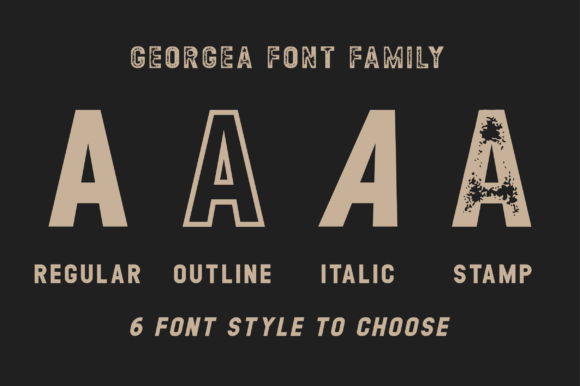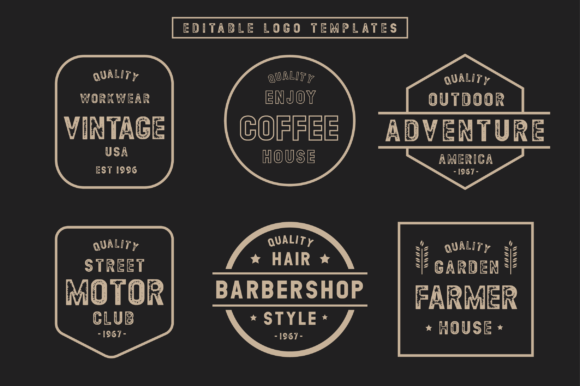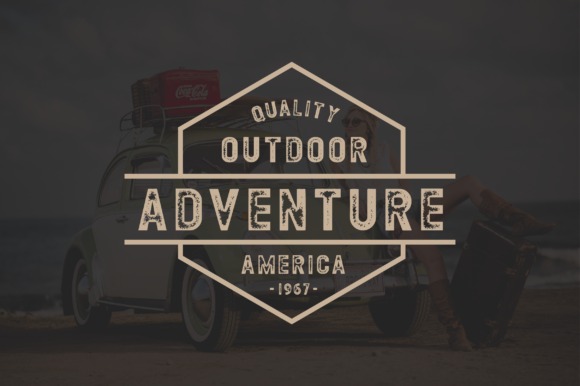
Introduction to Georgea Font
Georgea is a fun and bold all-caps sans serif font with a unique twist.
It will turn any creative project into an eye catcher .
Key Features of Georgea Font
Why Choose Georgea Font?
Georgea Font offers exceptional quality and versatility, making it a valuable addition to your design toolkit. Whether you’re creating for personal projects or commercial use, Georgea Font delivers professional results.